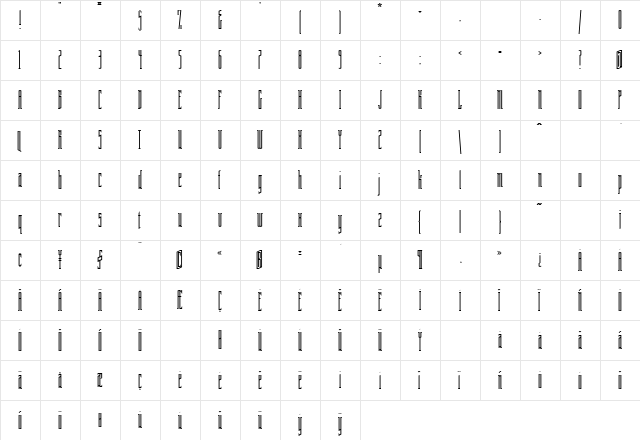
Planet 100
Design Context for Planet Typeface
Planet is a composed and adaptable typeface that performs quietly and consistently across a wide range of design contexts.
Pro Tip: Use Planet in both headline and body roles to test its range before committing to a single application.